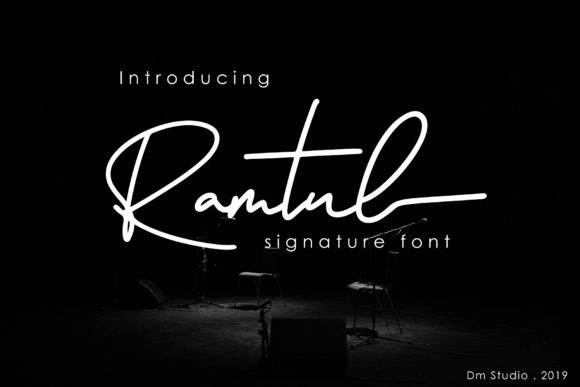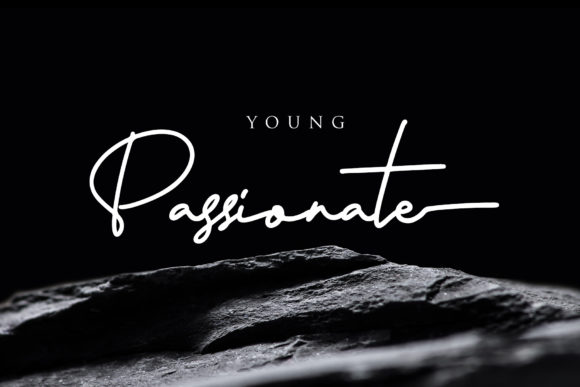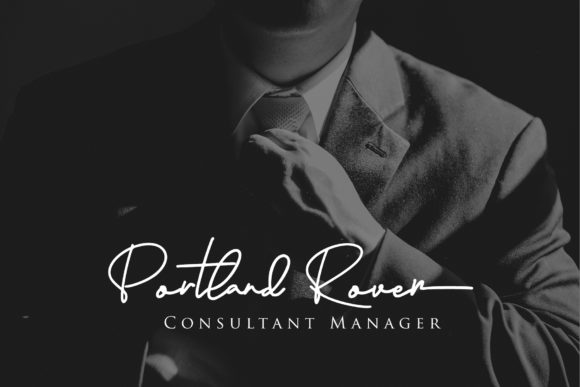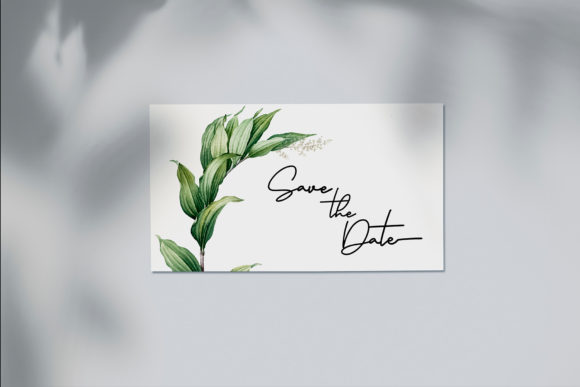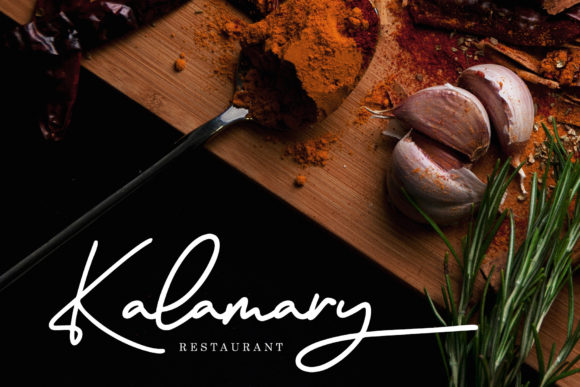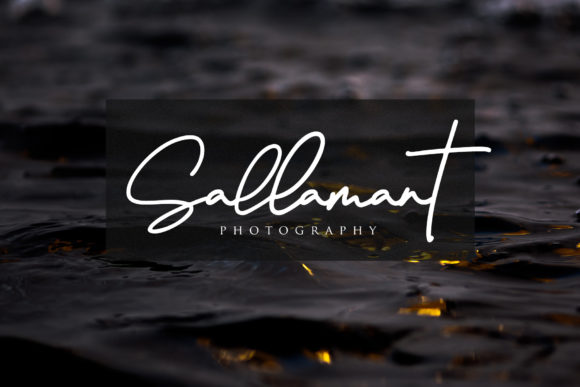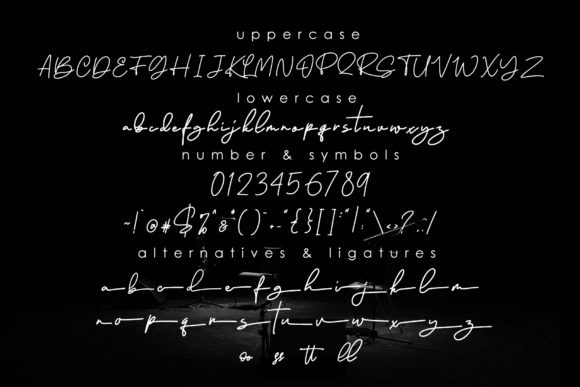
HomeScript FontsRamtul Font Script Fonts Ramtul Font FacebookXPinterestWhatsApp Ramtul Font Poster 2 Ramtul Font Poster 3 Ramtul Font Poster 4 Ramtul Font Poster 5 Ramtul Font Poster 6 Ramtul Font Poster 7 About Ramtul Font Ramtul is an incredibly classy, versatile and cool font with a modern feel. Get inspired by its casual elegance! DOWNLOAD NOW People also explored Santhay Font Queen Font Curious Font Spirit Breaker Bananas Font Majorette Font Margarethy Font Rollingtone Font Seraphime Font 363 0 TagsRamtul Font Previous articleBanderas FontNext articleSeren Font LEAVE A REPLY Cancel reply Comment: Please enter your comment! Name:* Please enter your name here Email:* You have entered an incorrect email address! Please enter your email address here Website: Save my name, email, and website in this browser for the next time I comment. Personal Use Free Bollado Personal Use Free Read more about this font Authurium Personal Use Free Read more about this font Trio Personal Use Free Read more about this font Airmole Personal Use Free Read more about this font BLOG Top 10 Handwritten Fonts That Elevate Your Designs Top 10 Handwritten Fonts That Will Elevate Your Designs Handwritten fonts bring a warm, personal touch to every creative project. Whether you're designing logos, invitations,... How to Cut Any Font on Cricut: Convert a Font to SVG (Free) Elegant Wedding Invitation Fonts – Handwritten & Script Fonts Top 7 Google Fonts Alternatives for Faster and Privacy-Friendly Web Design (2025)